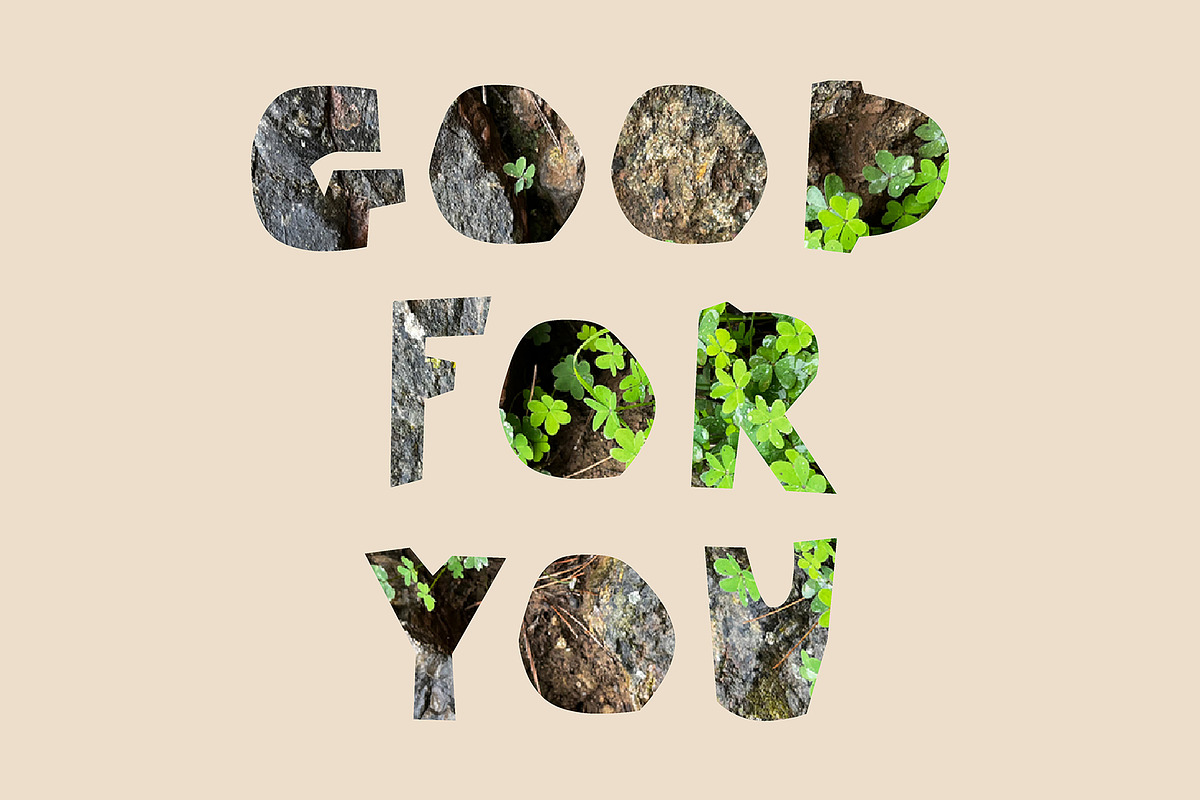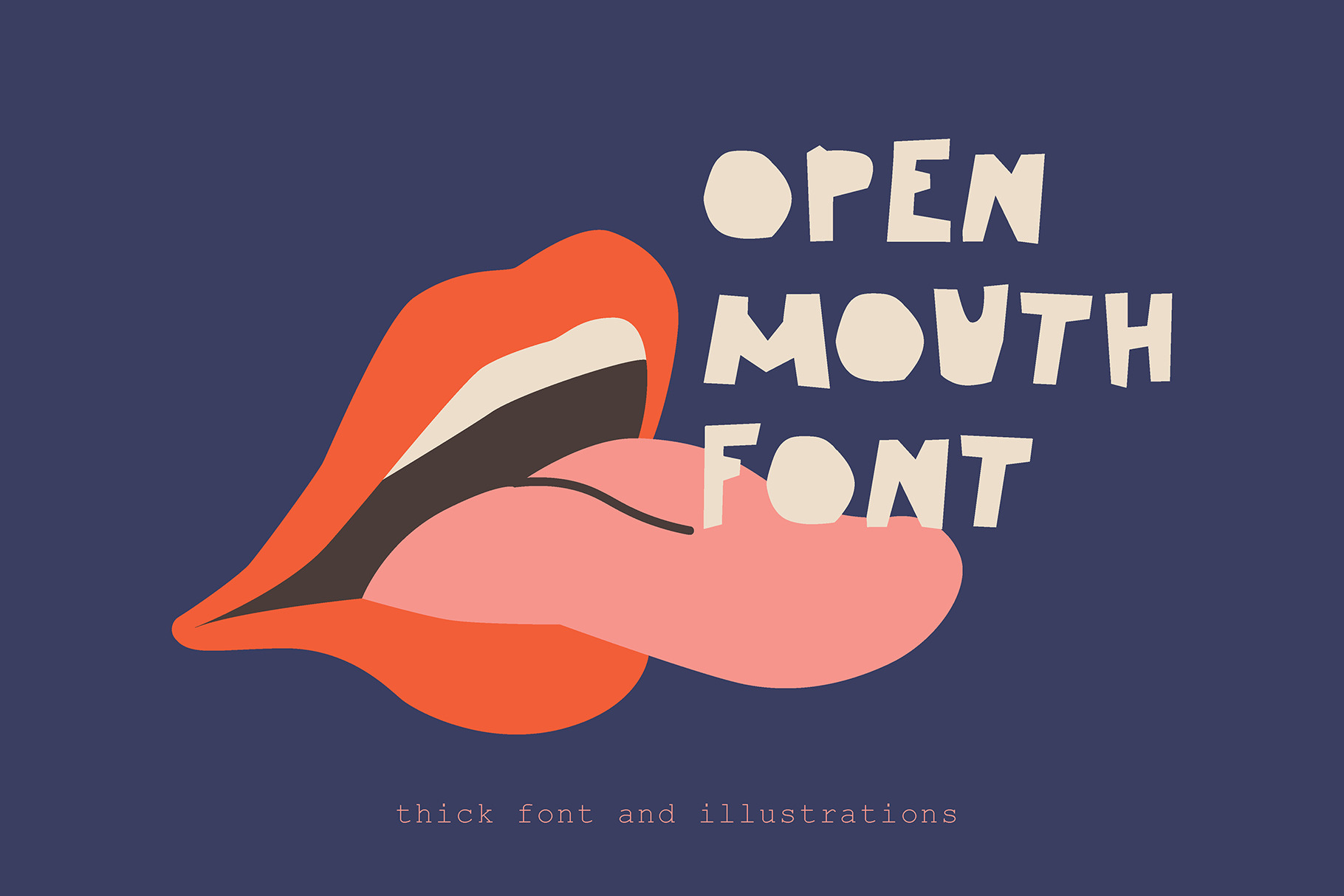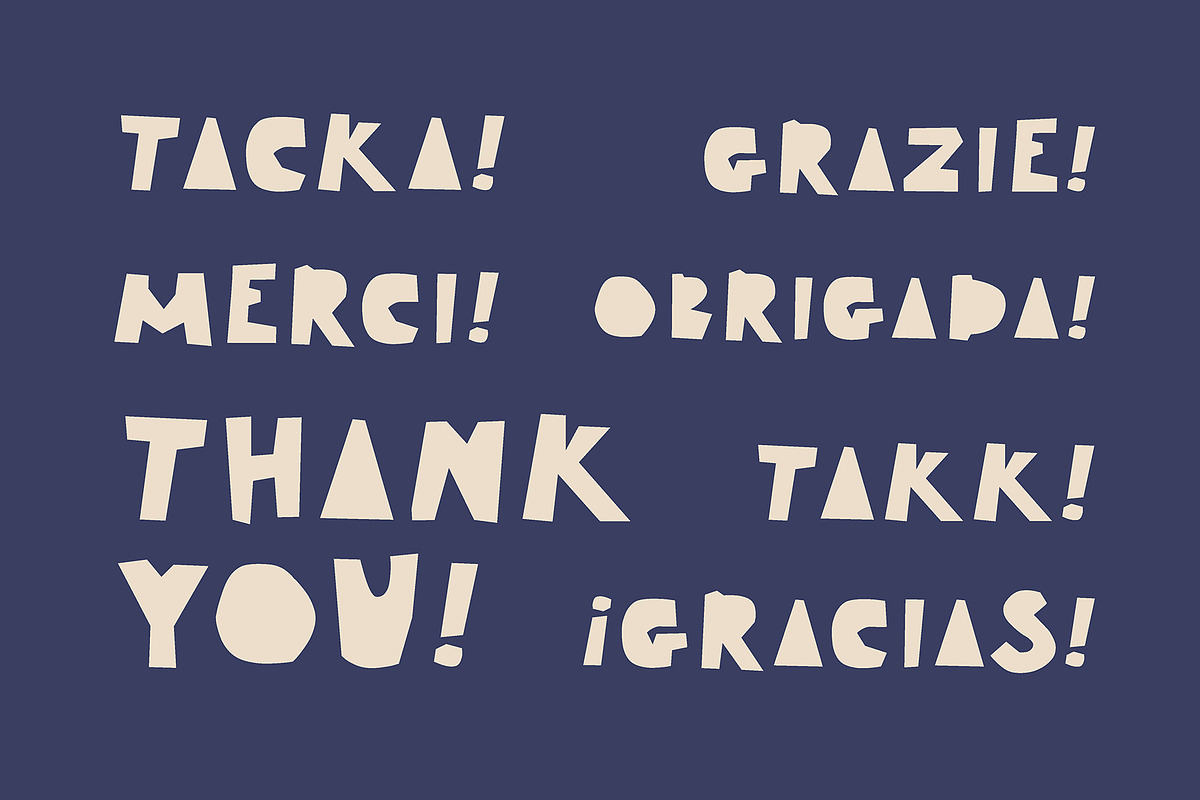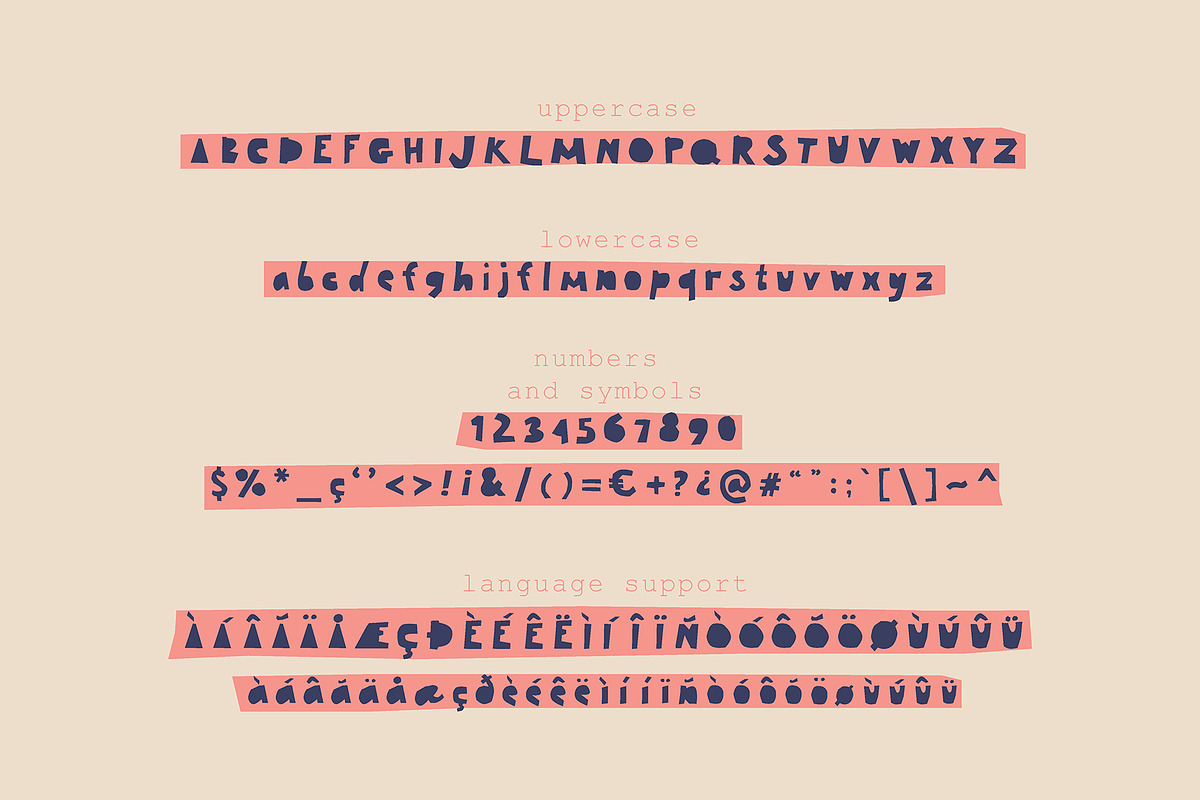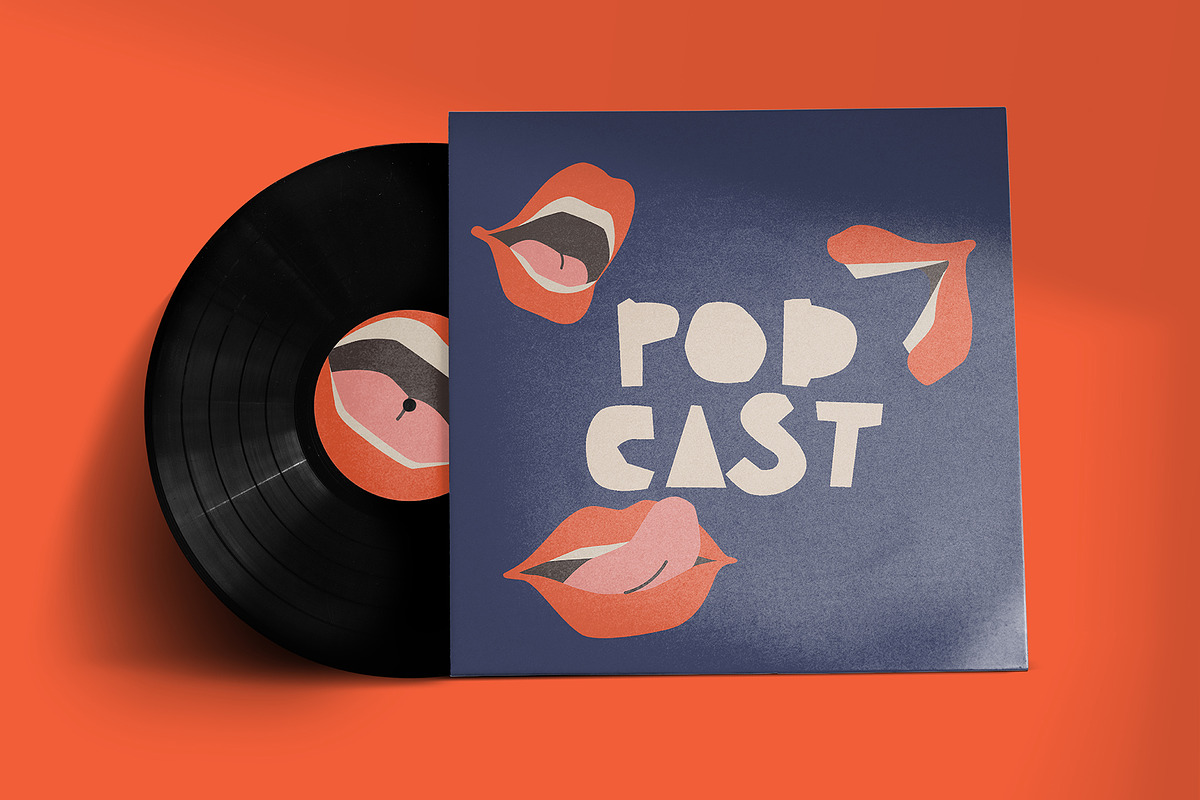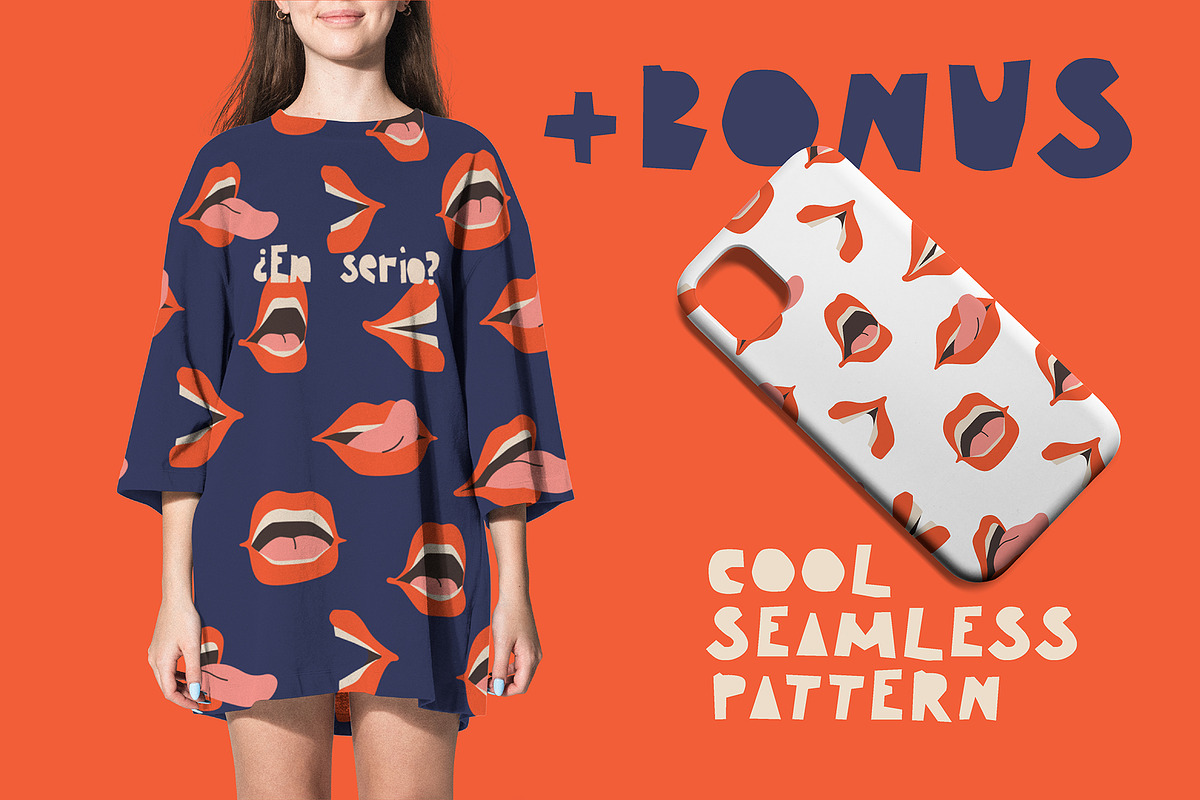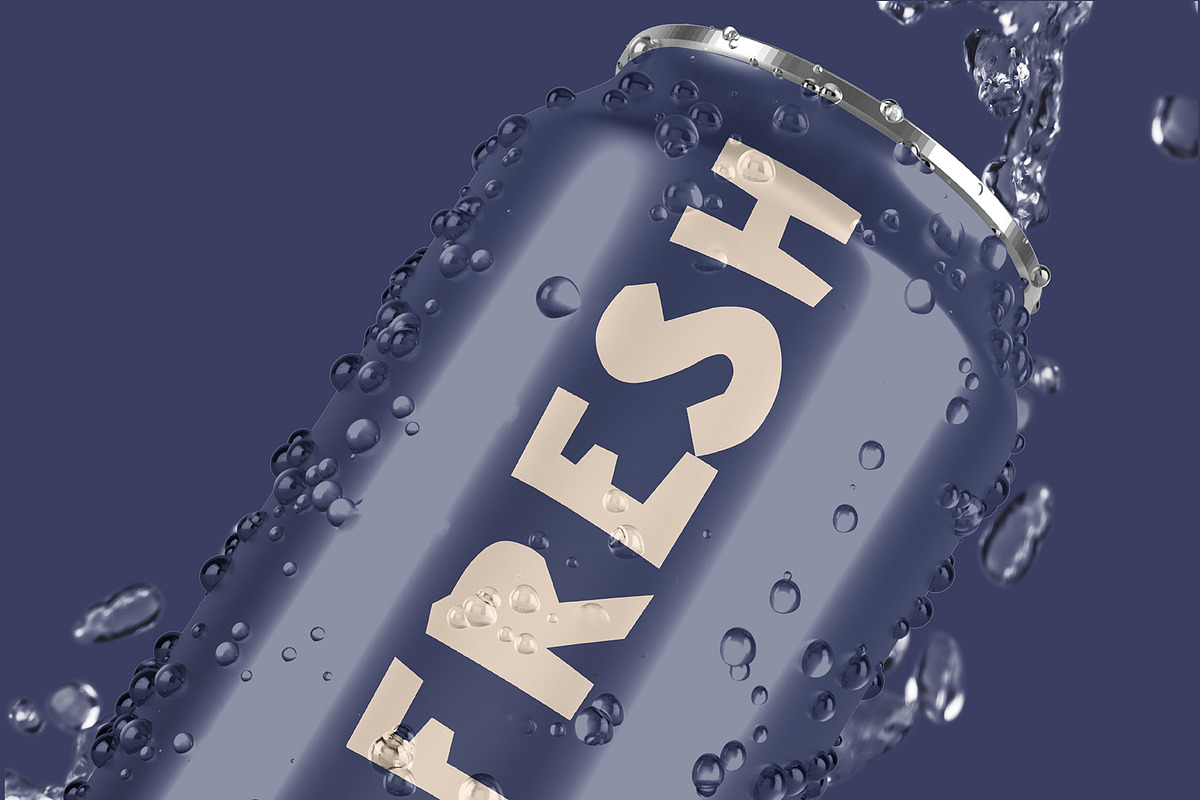
Open Mouth Font
This cool thick handwritten font includes lowercase and uppercase, numbers, spelling symbols and also supports most languages based on latin. There are 150 elements in total. Also with the font you will get 6 vector illustrations of playful open mouths with tongues hanging out. You can easily change colors in Adobe Illustrator. Use font and illustrations together for your design. Ideal for branding, packaging, posters, social media, podcast covers.